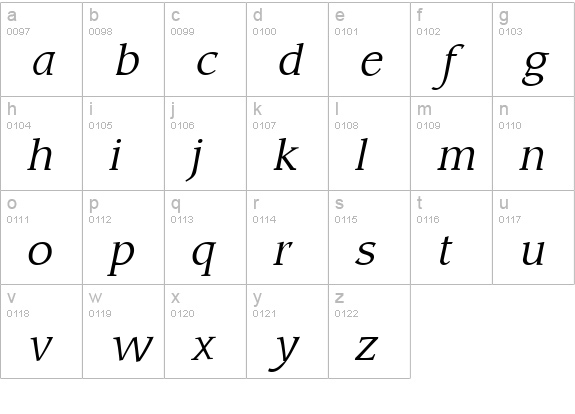
Leawood Italic is a distinctive, italic variant in the Leawood typeface family \xE2\x80\x94 well suited to design and typography projects.
Leawood Italic font is a stunning and elegant typeface that exudes charm and sophistication. Its sleek and slender letterforms gracefully curve and flow, making it a perfect choice for projects that require a touch of refinement. Designed with meticulous attention to detail, Leawood Italic captures the essence of modernity and timelessness. The slanted italic angle adds a dynamic and dynamic touch, giving your designs a sense of motion and energy. The versatility of Leawood Italic font makes it suitable for a wide range of applications. Whether you're designing a logo, creating a stylish headline, or crafting an eye-catching advertisement, this font will elevate your work to new heights. And the best part? Leawood Italic font is available for free download at FontsMarket.com. Yes, you read that right – this high-quality typeface can be yours without spending a dime. Simply head over to FontsMarket.com, and with just a few clicks, you'll have access to this exceptional font. So, why wait? Upgrade your design projects with Leawood Italic font and experience the perfect blend of elegance and functionality. Impress your audience with its captivating curves and make a lasting impression. Download Leawood Italic font for free from FontsMarket.com today!